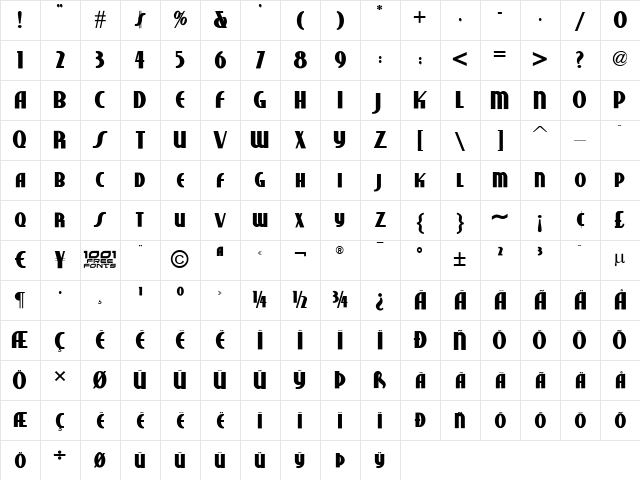
Studebaker NF is a composed and adaptable typeface that performs quietly and consistently across a wide range of design contexts. Its bold stroke weight gives it real presence on the page.